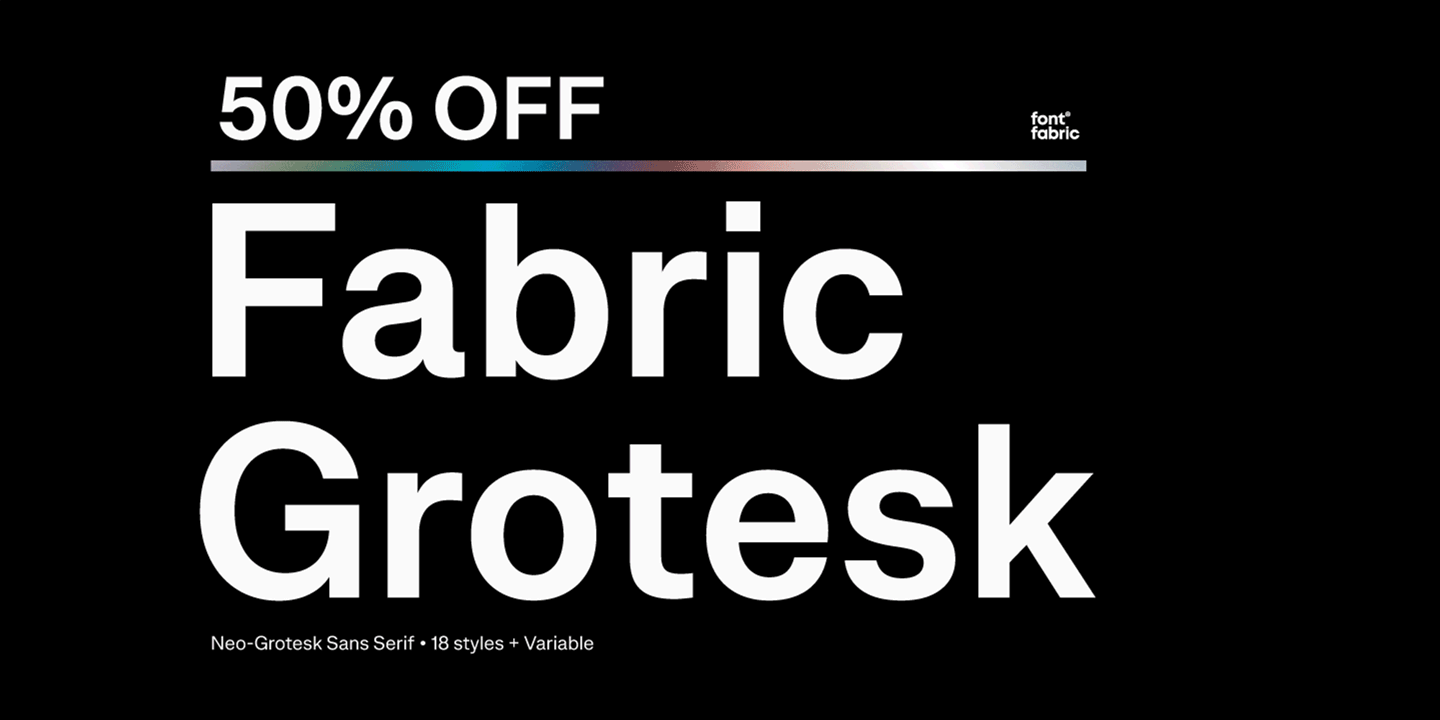
Presenting Fabric Grotesk - A font inspired by the visual clarity of the Swiss and International Graphic Style...
Fabric Grotesk is our take on the Neo-Grotesk tradition that defined much of mid-century modern design. Inspired by the visual clarity of the Swiss and International Graphic Style, and by masters such as Armin Hofmann and Josef Müller-Brockmann, we set out to create one of the most versatile and broadly usable typefaces in the Fontfabric library.
Its refined shapes, clean horizontal and vertical terminals, and carefully balanced curves give Fabric Grotesk a timeless, confident feel. Under the hood, it is just as practical as it is polished, with Extended Latin and Cyrillic support, Bulgarian Cyrillic forms, rich alternates, and a display-oriented stylistic set for moments when the design needs a sharper, more contemporary edge.
Whether you're building a modern identity, designing a magazine spread, shaping a clean website, or creating a flexible design system, Fabric Grotesk gives you clarity, consistency, and range. It feels neutral when needed, but never bland. It can stay quietly functional in body copy and step forward with more character in headlines thanks to its alternate display details.
With 18 static styles and 1 variable font, plus advanced OpenType features and multilingual support, Fabric Grotesk is built for serious design work across print and screen. It is the kind of workhorse that helps you move fast, stay consistent, and keep the typography looking sharp from first draft to final output.
“Our ultimate goal was for Fabric Grotesk to feel like air.” — Fontfabric
Plamen Motev:
Plamen is a creative type director at Fontfabric, where he combines his background in industrial and graphic design with his passion for typography, calligraphy, and visual communication. His mission is to create aesthetically refined and highly functional typefaces that elevate design across all media.